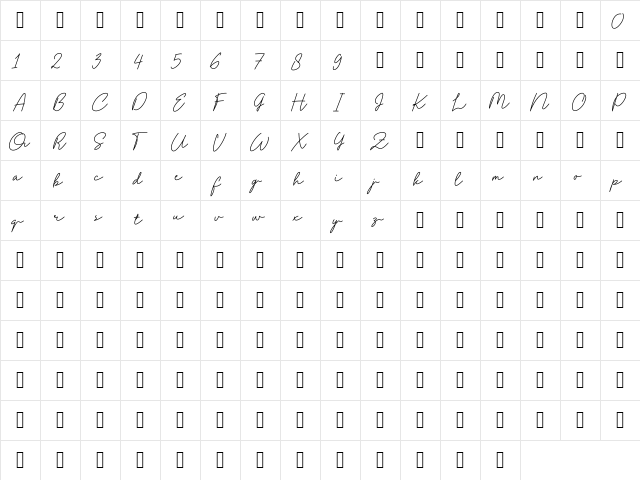
Westhamp Reguler
Design Context for Westhamp Typeface
Westhamp is a composed and adaptable typeface that performs quietly and consistently across a wide range of design contexts.